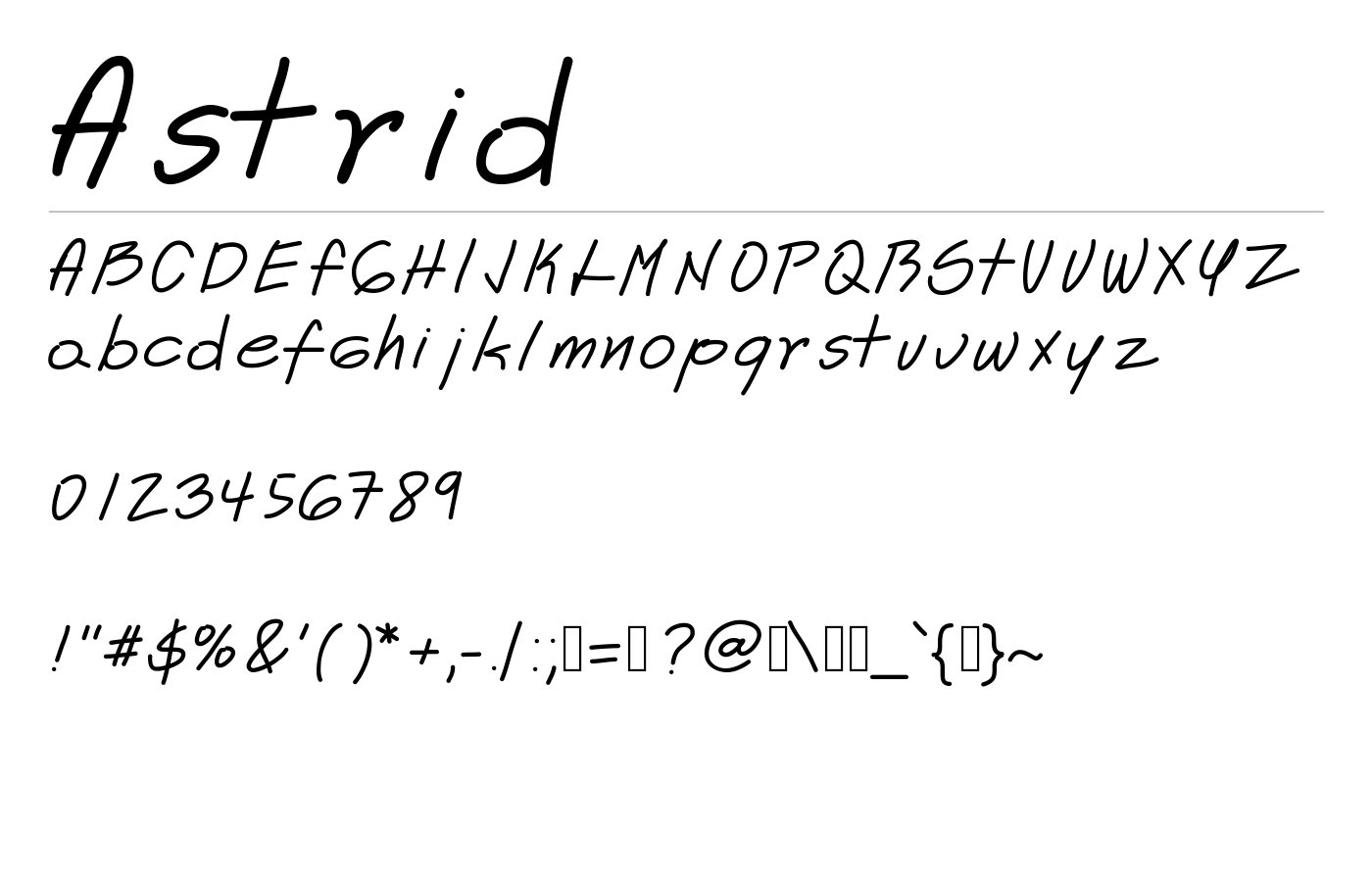
Astrid is a casual, handwritten script font that features a light, airy weight with a slightly condensed width and moderate x-height, giving it a friendly and approachable feel. Its smooth, rounded strokes and consistent line thickness create an informal yet clear style, making it ideal for personal branding, invitations, and creative projects where warmth and personality are key. This font works well for designs that seek a natural, human touch without sacrificing readability.
Astrid Font
About Astrid Font